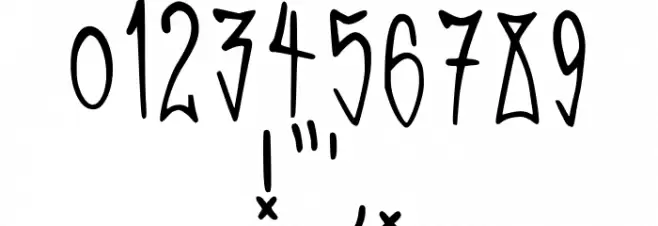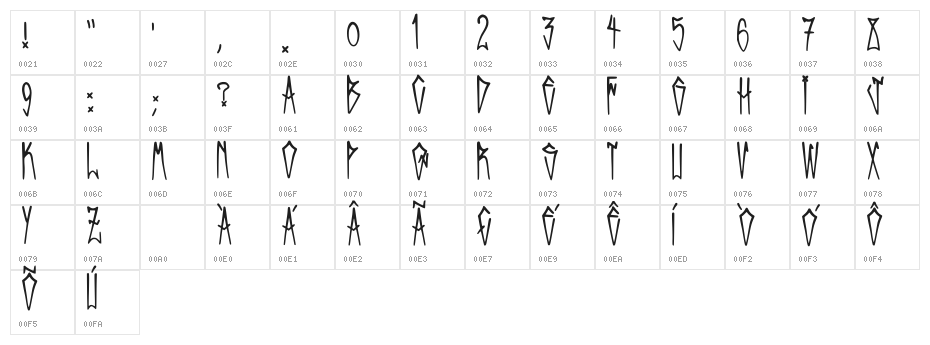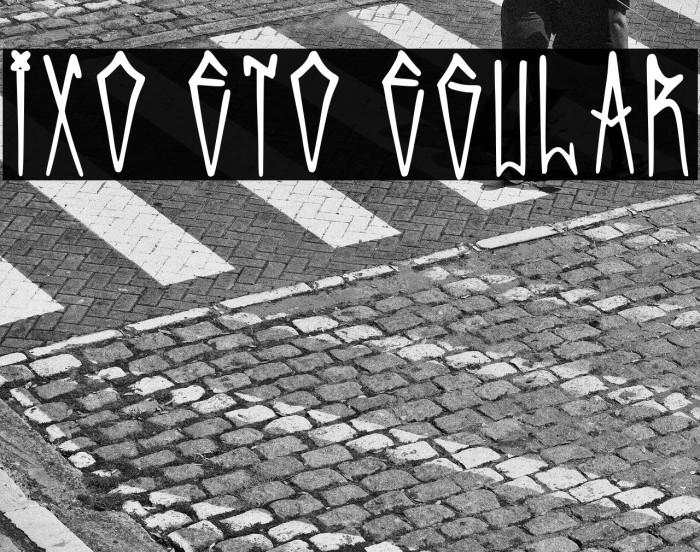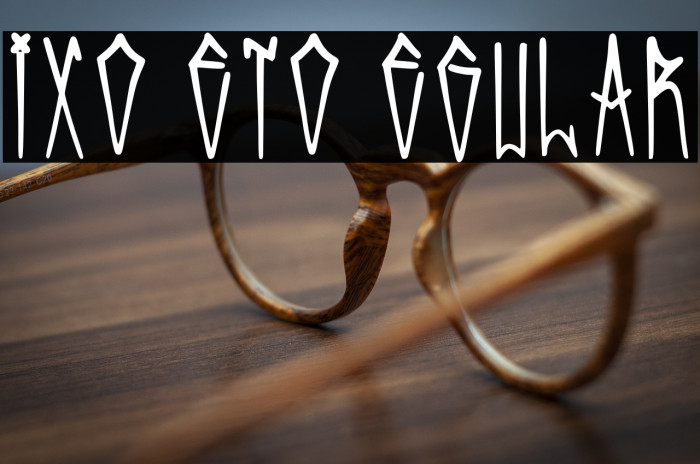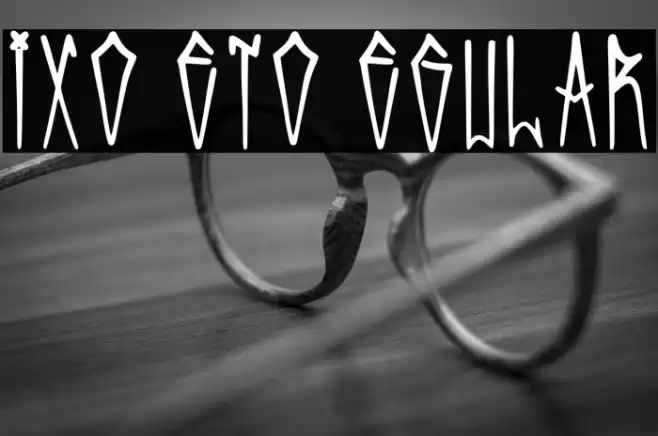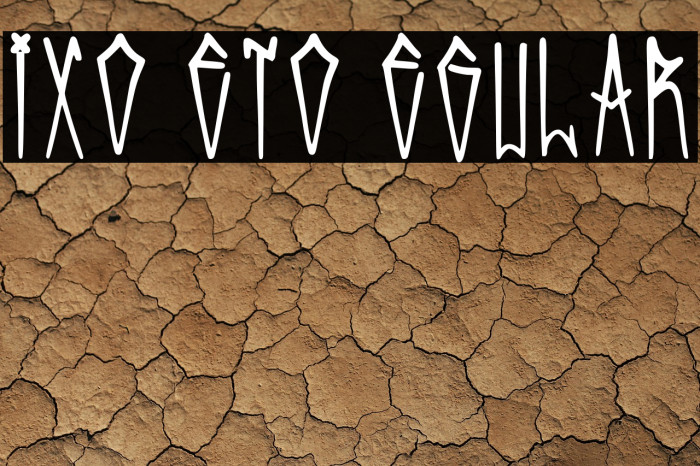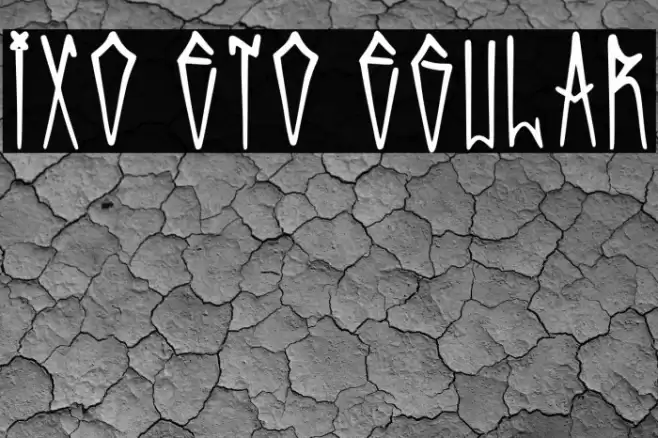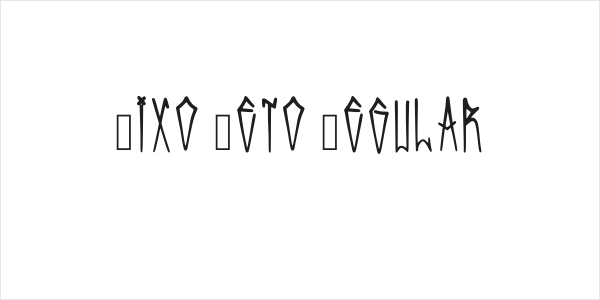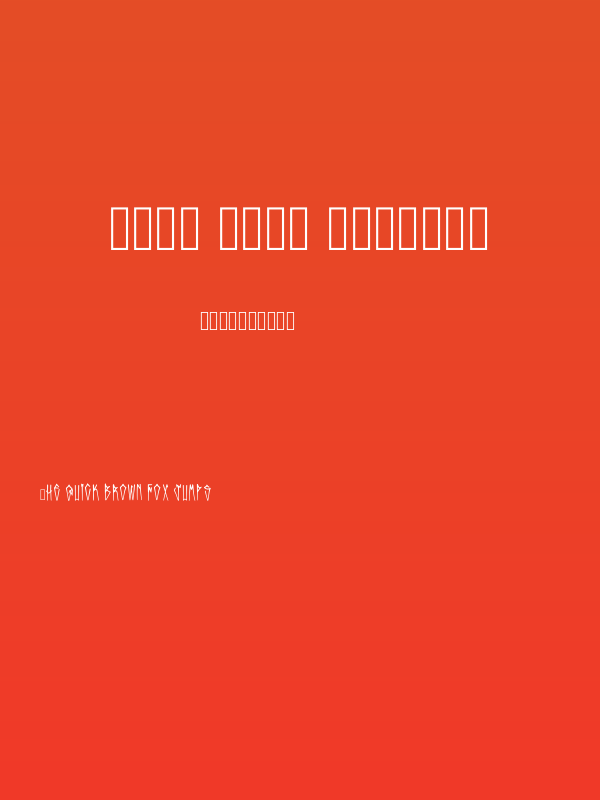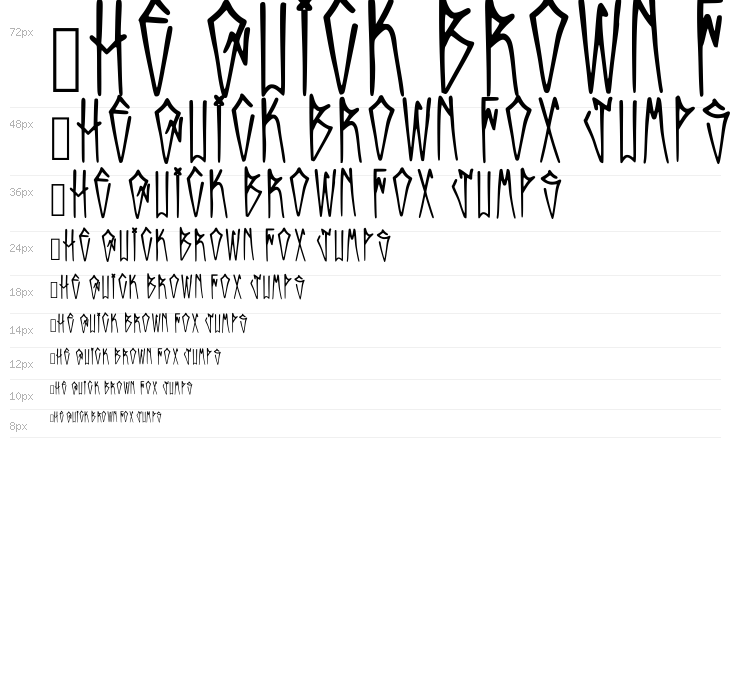
Pixo Reto Regular Font
Pixo Reto Regular Description
This font exhibits a unique and edgy style, characterized by its sharp, angular lines and irregular shapes. The uppercase letters are tall and narrow, with exaggerated strokes that give a sense of movement and energy. The numbers and special characters maintain this dynamic appearance, contributing to a cohesive and striking visual identity. The overall design is reminiscent of graffiti or street art, making it ideal for projects that require a bold and unconventional look.
| Overall Style | Modern, Edgy |
| Use Case | Logos, Posters, Album Covers |
| Proposed Projects | Ideal for street art designs, edgy branding, album covers, and posters that require a bold statement. |